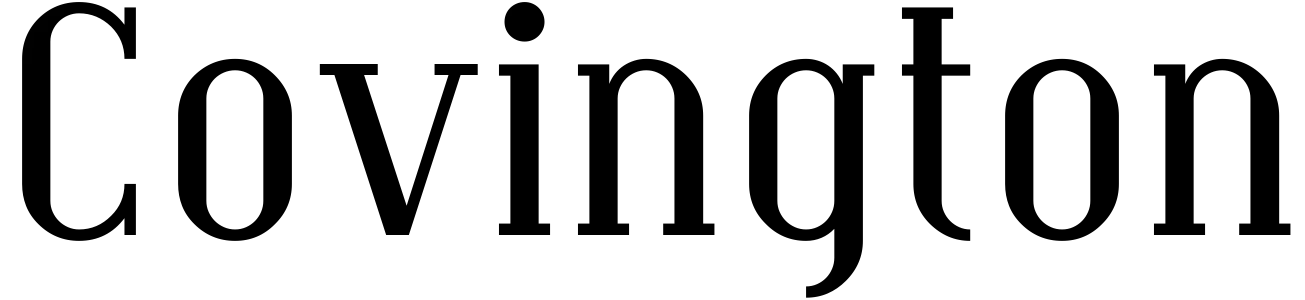
Covington by Apostrophic Labs is a fascinating typeface that exemplifies a blend of traditional charm and contemporary sophistication. Designed and released by Apostrophic Labs, a collective known for their wide array of type designs ranging from the experimental to the more conventional, Covington stands out as a testament to their versatility and creative prowess. The design of Covington strikes a balance between the refined elegance of serif fonts and the approachability of san-serif fonts, making it highly versatile and suitable for a myriad of applications.
The structure of Covington boasts well-proportioned letters with distinct serifs that add character and readability to the typeface. Despite its nod to classic typography, Covington feels modern due to its clean lines and even spacing. This gives it a timeless quality, allowing it to fit seamlessly into both traditional and contemporary designs. The font supports a wide range of characters and symbols, ensuring broad usability across different languages and contexts.
Moreover, Covington's versatility is amplified by its variations, which may include different weights and styles, providing designers with a toolkit capable of delivering visual interest and hierarchy to their work. Whether used for body text or headings, in print or on screen, Covington maintains its legibility and appeal, making it a dependable choice for a variety of design projects.
Covington embodies the essence of Apostrophic Labs' mission to create unique, high-quality typefaces. Its blend of old-world charm with modern sensibilities makes it a highly valued addition to any designer’s arsenal. Whether you’re crafting a logo, laying out a webpage, or setting the tone in a printed publication, Covington offers a blend of professionalism and personality that can elevate any project.